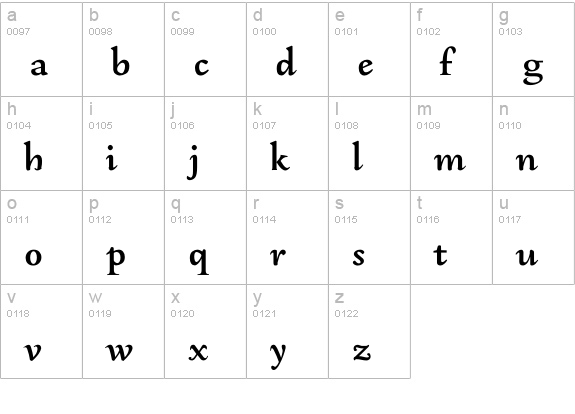
Steinbeck Gras Obl Font Details
Introducing Steinbeck Gras Obl font, a stunning typeface that exudes elegance and sophistication. This unique font features sleek lines and a modern aesthetic that is perfect for a wide range of design projects. With its bold, italicized style, Steinbeck Gras Obl font adds a touch of flair and creativity to any text or headline. What makes Steinbeck Gras Obl font even more appealing is the fact that it is completely free to download at FontsMarket.com. This means that you can elevate your designs with this beautiful font without breaking the bank. Whether you are working on a branding project, website design, or any other creative endeavor, Steinbeck Gras Obl font is sure to make a statement and leave a lasting impression. Don't miss out on this incredible opportunity to enhance your designs with the stunning Steinbeck Gras Obl font. Download it for free today at FontsMarket.com and take your projects to the next level!